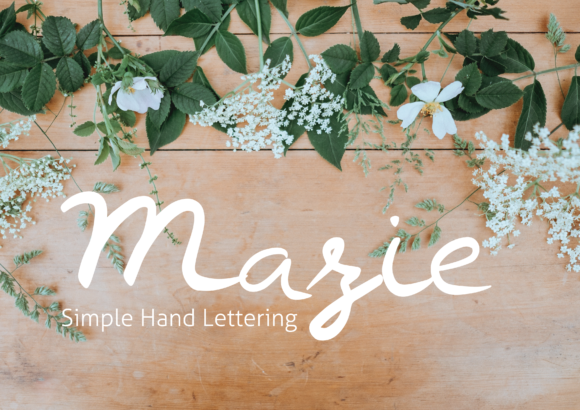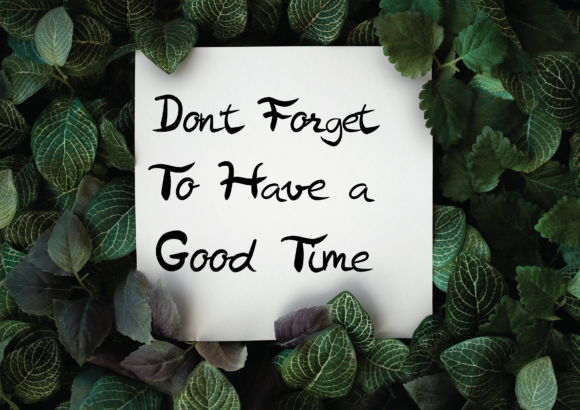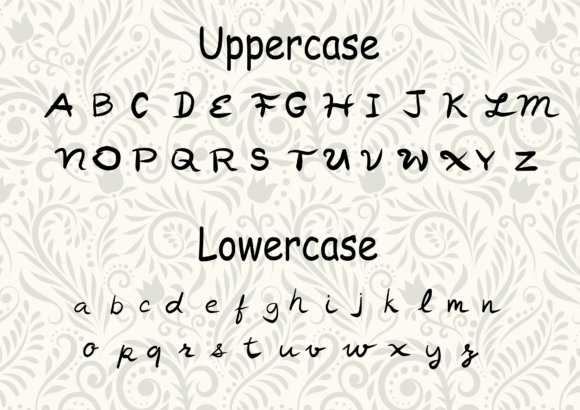
Mazie Font
About Mazie Font
Mazie is a simple hand lettering script. Ignite your creativity with this beautiful font and use it to elevate any of your craft to the next level.